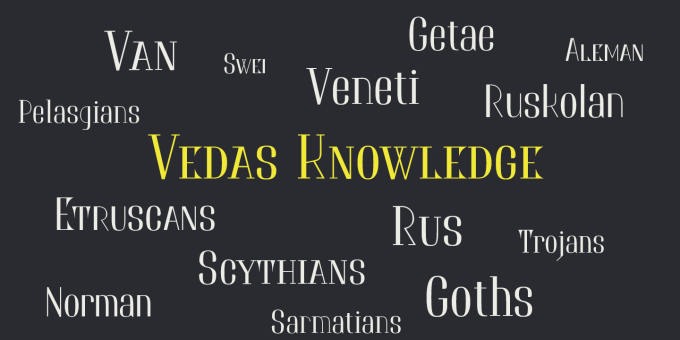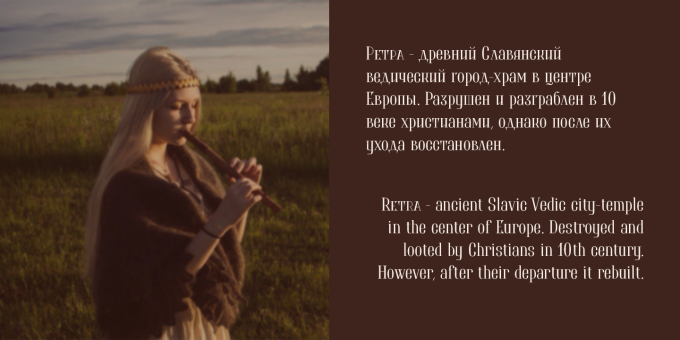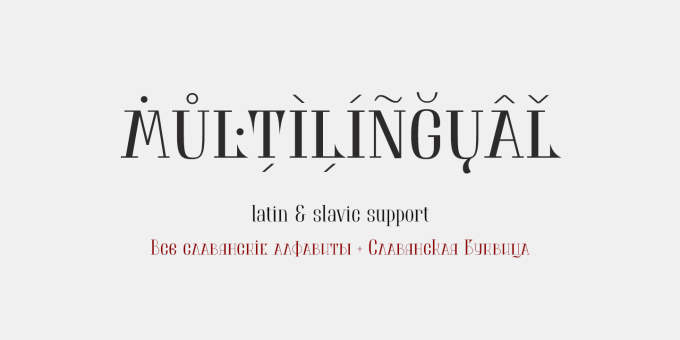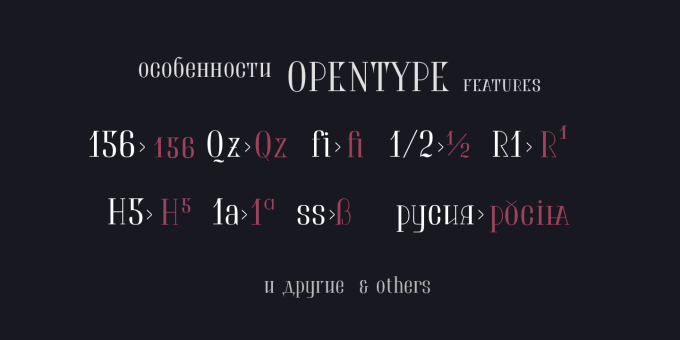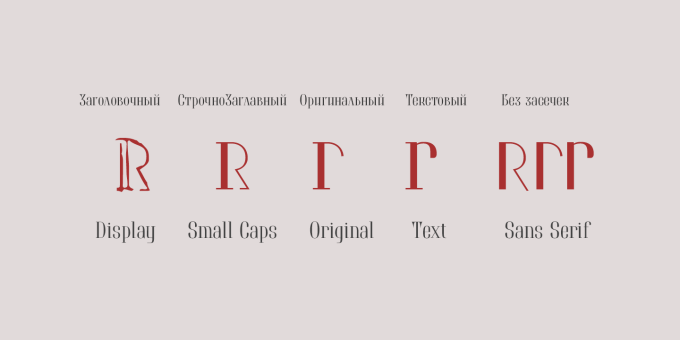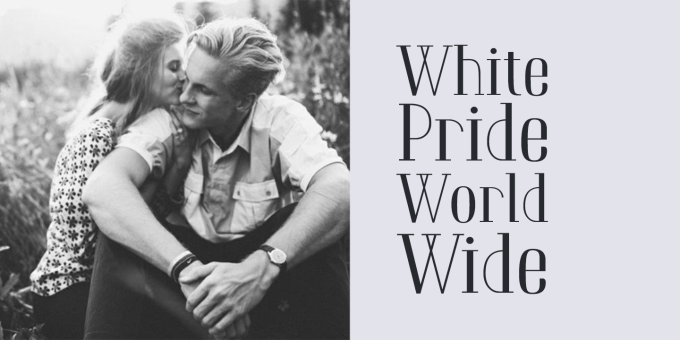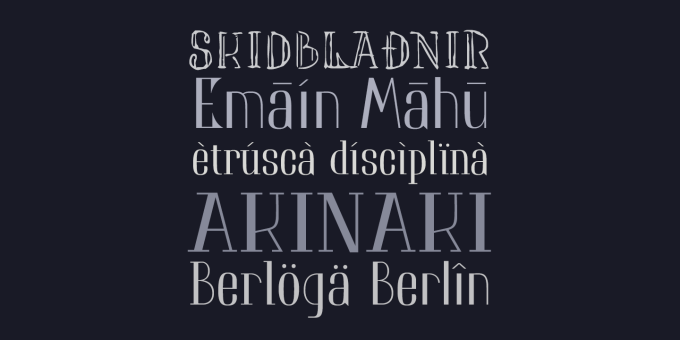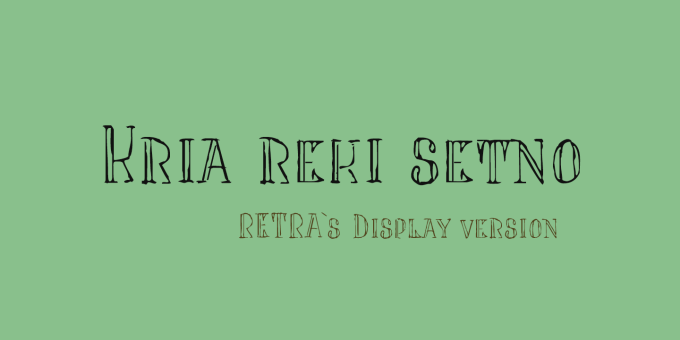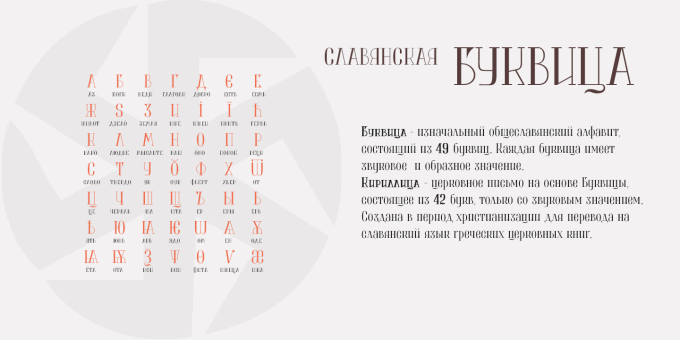
Retra
Retra is unusual serif high-contrast font family in Bodonian style. Some elements has not classical forms, so the font looks interesting and unusual. It is suitable for headlines and some texts.
Font family Retra has as bright a display font style and a relaxed textual font styles, and sans-serif font styles. There are many OpenType features, also all the 104 European languages and all Slavic languages. Retra also has an alternative set of Slavic natural lowercase.
Text, typed Retra, of course, attracts attention. Overall, Retra leaves a memorable and attractive experience.